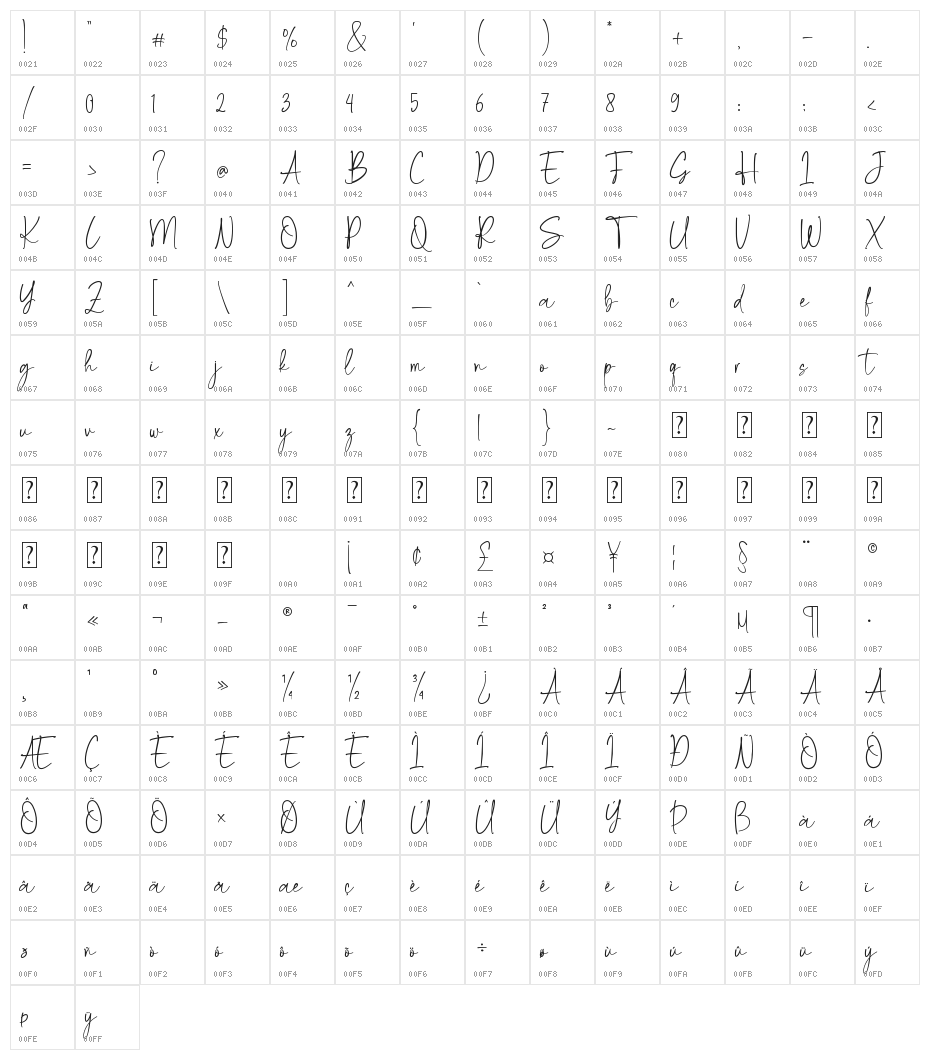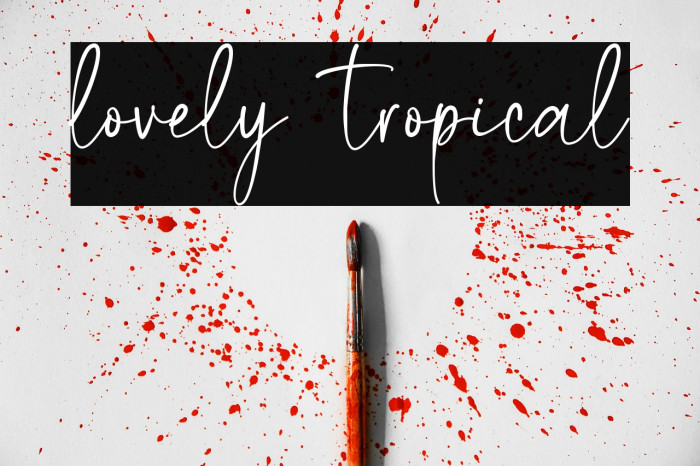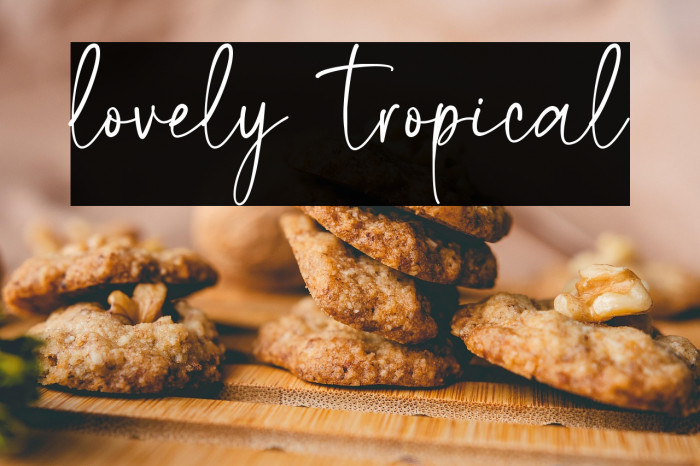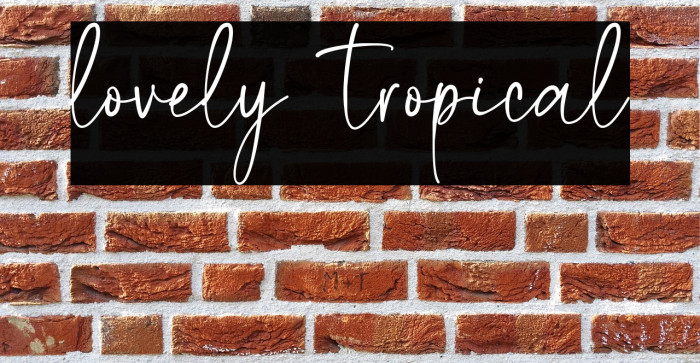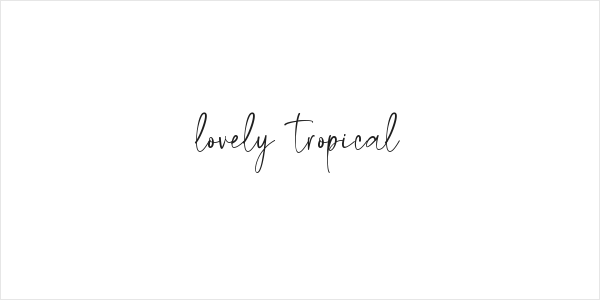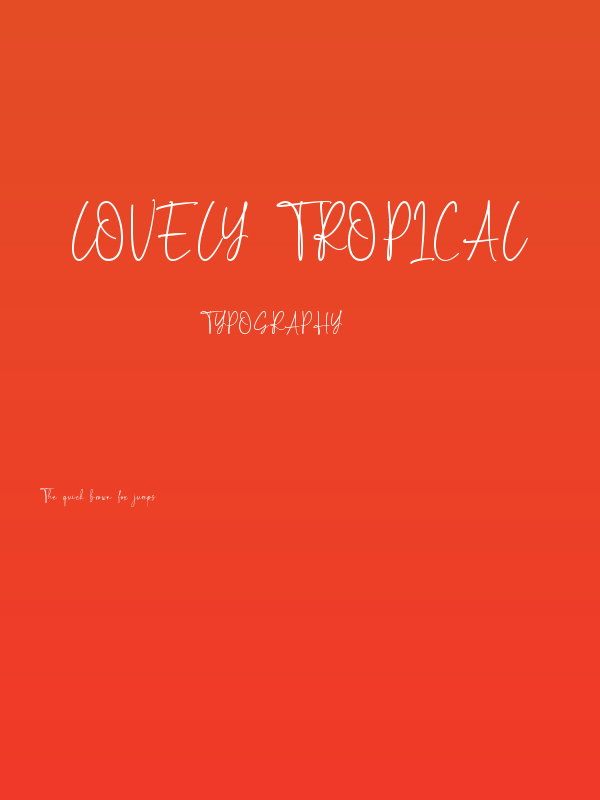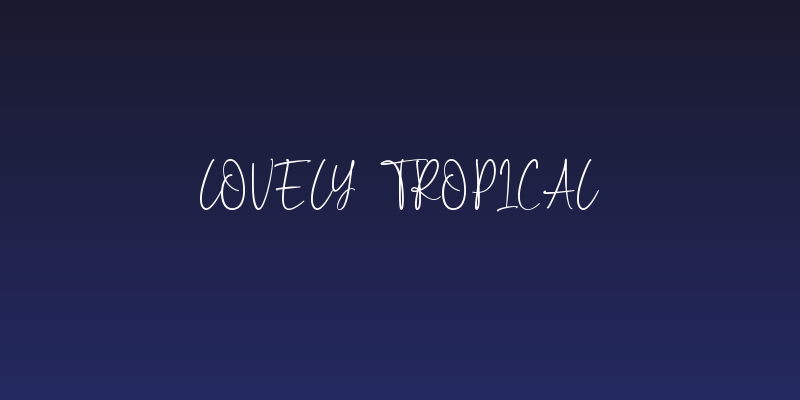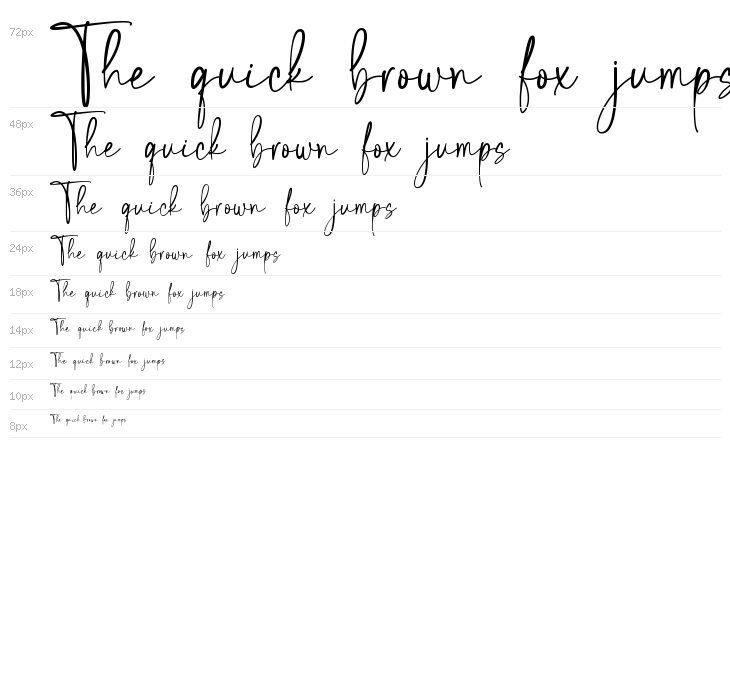
lovely tropical Font
lovely tropical Description
A playful and elegant handwritten script font with a casual and flowing style, featuring smooth curves and a natural, organic feel.
| Proposed Projects | Invitations, greeting cards, branding, social media graphics. |